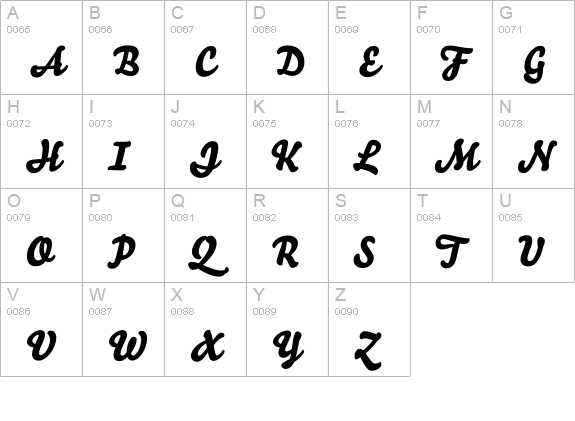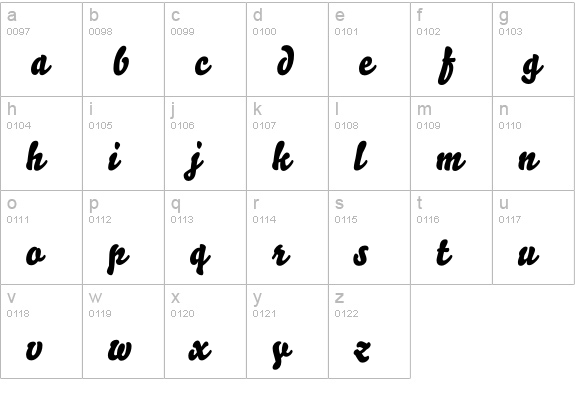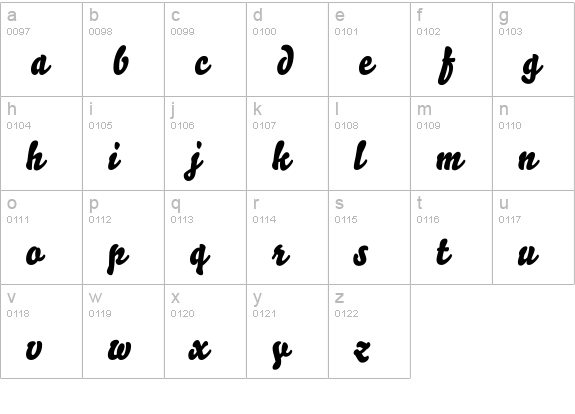
Bello Pro is a beautifully crafted and versatile font that exudes elegance and sophistication. With its clean lines and classic aesthetic, this font is perfect for a wide range of design projects, from invitations to branding to editorial layouts. What sets Bello Pro apart is not just its timeless appeal, but also the fact that it is available for free download at FontsMarket.com. This means that you can add this exquisite font to your collection without any cost, making it a valuable asset for any designer or creative professional. Whether you're working on a wedding invitation, a logo design, or a magazine spread, Bello Pro is sure to elevate your project and give it a touch of refinement. Download this font today and unleash your creativity with its endless possibilities.